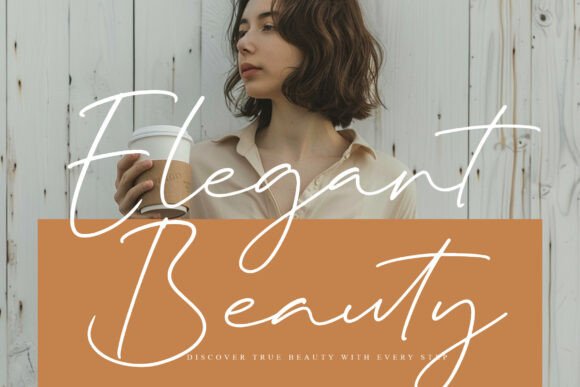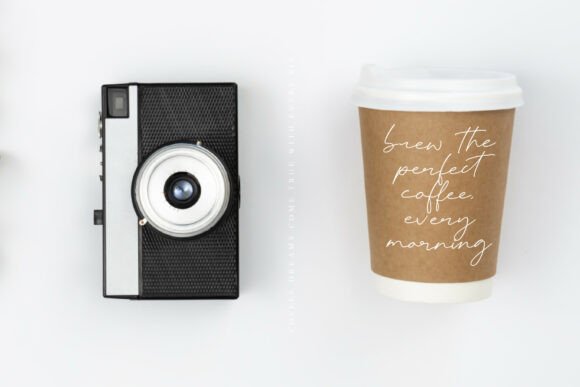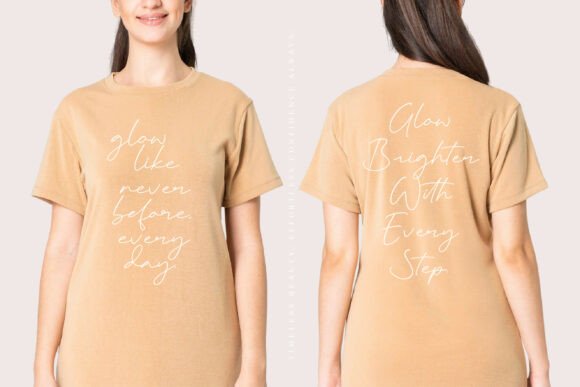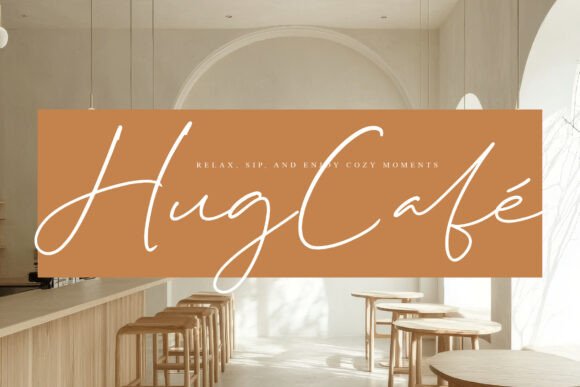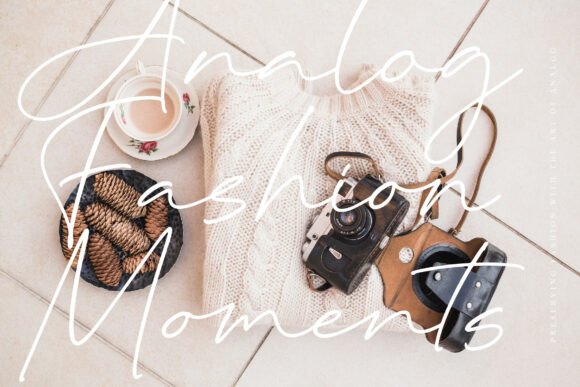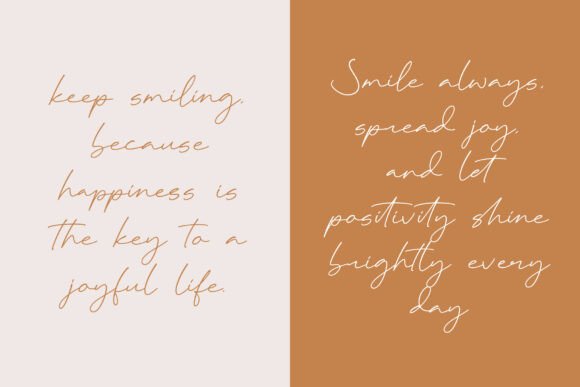
Astral Breakfast Regular Font: Elevate Your Designs with Elegance and Sophistication
In the world of typography, few fonts manage to convey the essence of luxury and refinement as effectively as Astral Breakfast. This sophisticated and elegant script font, crafted by Operatype, is designed to bring a touch of class and charm to your most stylish projects. With its graceful strokes and polished curves, Astral Breakfast radiates warmth and sophistication, making it an ideal choice for designers and crafters looking to add a premium touch to their work.
Unleash Your Creativity with Astral Breakfast
Astral Breakfast is more than just a font – it’s a versatile tool that can elevate a wide range of design projects. Whether you’re working on logos, brand identities, packaging, apparel, home décor, quotes, social media, or any other project that calls for a luxurious tone, this typeface is sure to impress. Its elegant and refined aesthetic makes it perfect for:
- Logos and brand identities: Create a lasting impression with a sophisticated logo that exudes luxury and refinement.
- Packaging: Add a touch of elegance to product labels, packaging, and wrapping.
- Apparel: Design stylish and sophisticated clothing and accessories.
- Home décor: Create beautiful and refined home décor designs, including wall art, invitations, and greeting cards.
- Quotes and social media: Share inspiring quotes and social media posts with a touch of luxury and sophistication.
- Photography watermarks: Protect your images with a stylish and elegant watermark.
Key Features of Astral Breakfast
Astral Breakfast comes with a range of features that make it easy to use and versatile. Some of its key features include:
- PUA Encoding: Fully PUA encoded, making all characters easily accessible without the need for extra software.
- Elegant and Refined Aesthetic: With its graceful strokes and polished curves, Astral Breakfast radiates luxury and warmth.
- Versatility: Suitable for a wide range of design projects, from logos and branding to packaging, apparel, and more.
Why Choose Astral Breakfast?
With so many fonts available, why choose Astral Breakfast? Here are just a few reasons why this elegant script font stands out:
- Unique and Distinctive: Astral Breakfast has a unique and distinctive aesthetic that sets it apart from other fonts.
- High-Quality Design: Crafted with attention to detail, this font is designed to deliver high-quality results.
- Support for Creative Projects: Whether you’re a designer, crafter, or DIY enthusiast, Astral Breakfast provides the perfect tool to bring your creative projects to life.